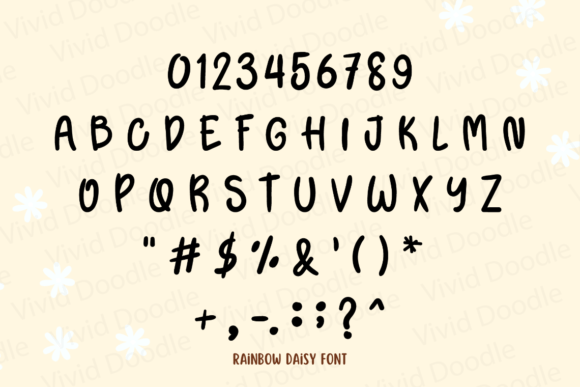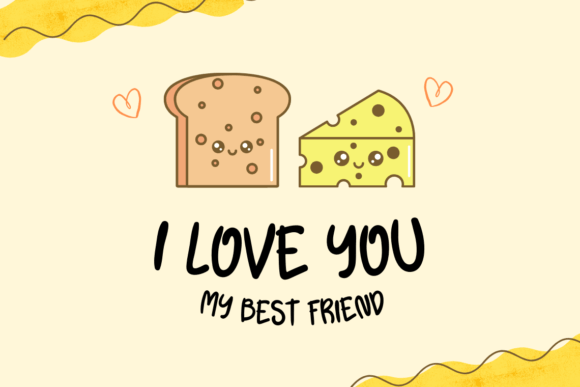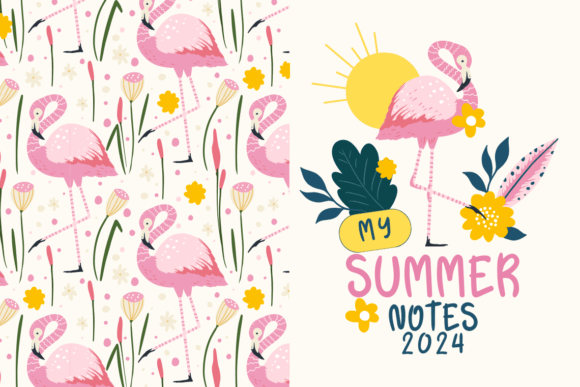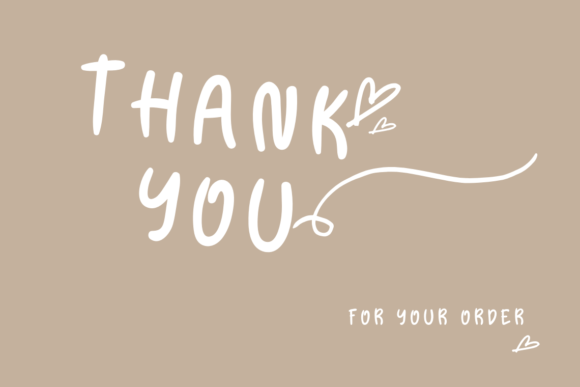
Introduction to Rainbow Daisy Font
Introducing “Rainbow Daisy” Script Font: Elevate your designs with the charming and whimsical “Rainbow Daisy” script font.
Perfect for a variety of creative projects, this beautifully crafted typeface brings a burst of color and personality to your work Whether you’re designing invitations, greeting cards, posters, or digital art, “Rainbow Daisy” will add a delightful touch of elegance and playfulness.
Key Features of Rainbow Daisy Font
Why Choose Rainbow Daisy Font?
Rainbow Daisy Font offers exceptional quality and versatility, making it a valuable addition to your design toolkit. Whether you’re creating for personal projects or commercial use, Rainbow Daisy Font delivers professional results.